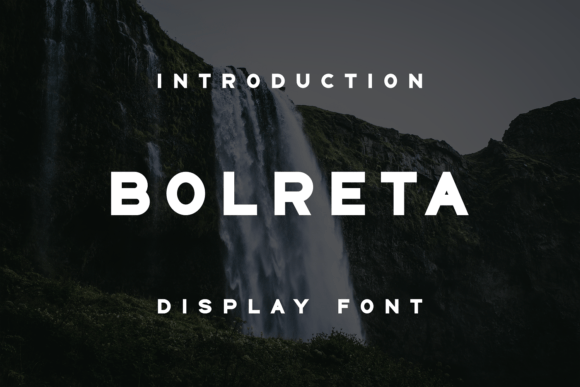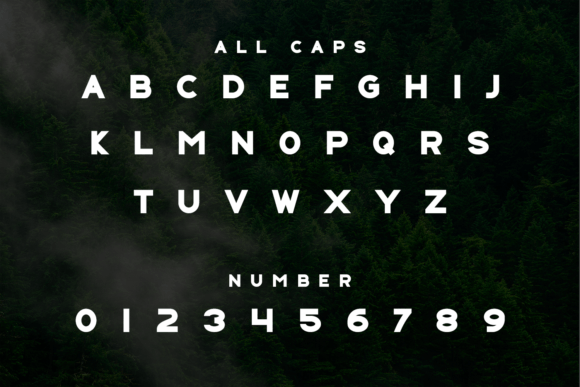
Discover the Unique Charm of Bolreta Font: Elevate Your Designs with Style
In the vast world of typography, finding a font that stands out and captures the essence of your creative vision can be a daunting task. However, if you’re on the lookout for a typeface that exudes coolness and uniqueness, look no further than the Bolreta Font. This display font is meticulously crafted with high attention to detail, making it a fantastic addition to any designer’s or crafter’s font library. Whether you’re working on a branding project, crafting a compelling headline, or simply experimenting with typography, Bolreta Font has the potential to elevate your creations and make them truly unforgettable.
The Distinctive Features of Bolreta Font
Bolreta Font boasts a distinctive style that sets it apart from more conventional typefaces. Its neat and detailed design ensures that it can be used across a wide range of projects, from digital media to print materials. The font’s unique character makes it particularly well-suited for headlines, titles, and any other design element where you want to make a strong visual impact. Its versatility means that it can be adapted to various themes and topics, ensuring that your designs always look fresh and engaging.
Why Choose Bolreta Font for Your Projects?
There are several reasons why Bolreta Font should be your go-to choice for your typography needs:
- Unique Aesthetic: Bolreta offers a cool and unique look that can instantly elevate the style of your project. Its distinctive design ensures that your work stands out from the crowd.
- Highly Detailed: The meticulous craftsmanship that has gone into creating Bolreta Font means that it is highly detailed, making it suitable for both digital and print applications.
- Versatility: Whether you’re working on a serious branding project or a more creative endeavor, Bolreta Font can adapt to any topic or theme, ensuring that your designs are always on point.
- Enhanced Creativity: With Bolreta in your font library, you’ll have the tools to create stunning, eye-catching designs that capture the imagination of your audience.
How to Use Bolreta Font Effectively in Your Designs
To make the most of Bolreta Font, consider the following tips:
- Pair it with Complementary Fonts: Bolreta Font works best when paired with simpler, more straightforward fonts. This contrast ensures that your headlines or titles stand out while maintaining readability in your body text.
- Experiment with Sizes and Colors: Don’t be afraid to play around with different sizes and colors to maximize the impact of Bolreta Font. Its detailed design looks great in larger sizes, making it perfect for headlines and titles.
- Use it for Branding Projects: Bolreta Font’s unique style makes it an excellent choice for branding projects. It can help create a memorable visual identity for your brand, setting you apart from competitors.
Bolreta Font is more than just a typeface; it’s a design asset that can transform your projects with its cool and unique style. Its detailed craftsmanship and versatility make it an indispensable tool for designers and crafters looking to make a statement. Whether you’re aiming to create visually striking headlines, enhance your brand’s visual identity, or simply explore new typography possibilities, Bolreta Font is an excellent choice. Add it to your font library today and discover the difference it can make in your designs.
With Bolreta Font, the possibilities are endless. Its ability to breathe new life into any project makes it a valuable resource for creatives. So, why settle for ordinary when you can make your designs extraordinary with Bolreta Font?